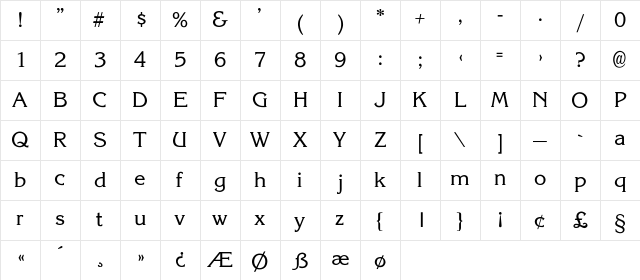
Korina-Light Regular
Design Context for Korina-Light
Korina-Light is a composed and adaptable typeface that performs quietly and consistently across a wide range of design contexts. Its slender proportions lend an understated elegance to any composition.